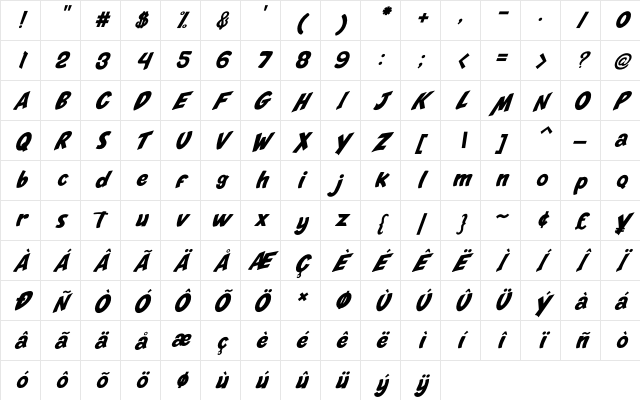
Monsterize Italic Regular Free Font
Monsterize Italic Regular
Foundry: Kong font
Designer: Kong font
Complete Monsterize Italic Regular glyph index. Displaying only characters natively supported by Monsterize Italic Regular font.
Design Context for Monsterize Italic
Monsterize Italic is a composed and adaptable typeface that performs quietly and consistently across a wide range of design contexts. The slanted form adds forward momentum and visual energy.
Pro Tip: Use Monsterize Italic for emphasis, pull quotes, and subheadings where its slanted energy can add rhythm to the layout.